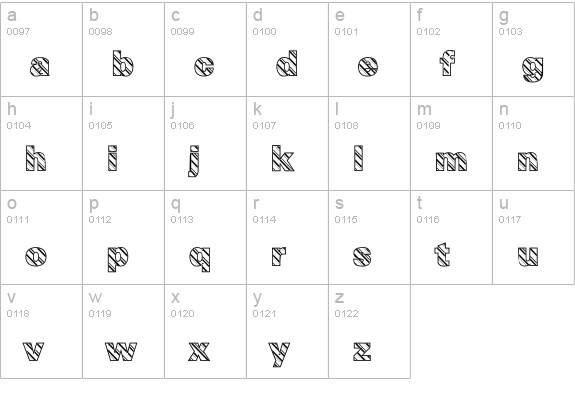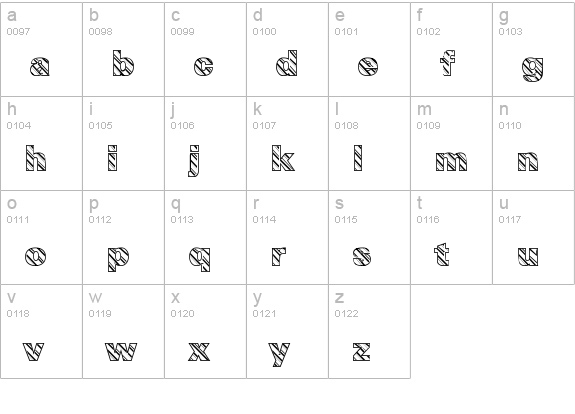
Candy Cane Normal is the standard, neutral variant in the Candy typeface family \xE2\x80\x94 well suited to general body text, paragraphs, and standard typographic work.
Candy Cane Normal font is a delightful and playful typeface that exudes a whimsical charm perfect for adding a touch of fun to any design project. With its iconic striped appearance reminiscent of the classic holiday candy, this font is sure to bring a festive flair to your creations. The Candy Cane Normal font is versatile and suitable for a wide range of applications, from greeting cards to invitations, posters, and more. Best of all, this charming font is available for free download at FontsMarket.com. Simply visit the website to access this delightful typeface and unleash your creativity with its cheerful and eye-catching design. Add a sweet and festive touch to your projects with Candy Cane Normal font today!